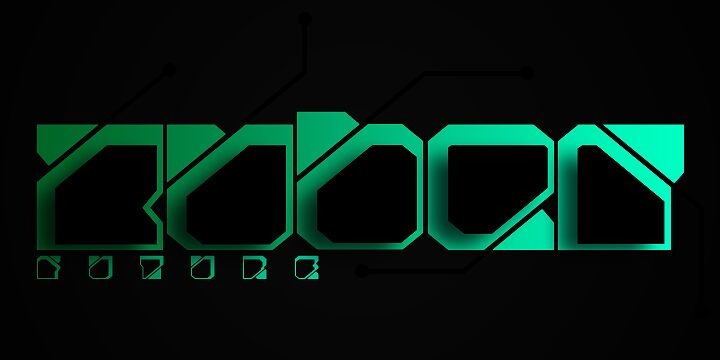
Zuber Future by Carlos Matteoli is a free futuristic display font with massive geometric forms and sharp diagonal cuts. Its broad letters combine squared outer shapes with clipped corners and large open interiors. Repeated slashes break through the strokes, giving the alphabet the look of engineered panels or racing graphics.
A motorsport poster is its most convincing setting, where the angled cuts can echo speed lines and vehicle decals. The same construction suits game title cards, electronic music packaging, and science-fiction event graphics. It will appeal most to designers working with arcade culture, custom cars, and assertive technology themes.